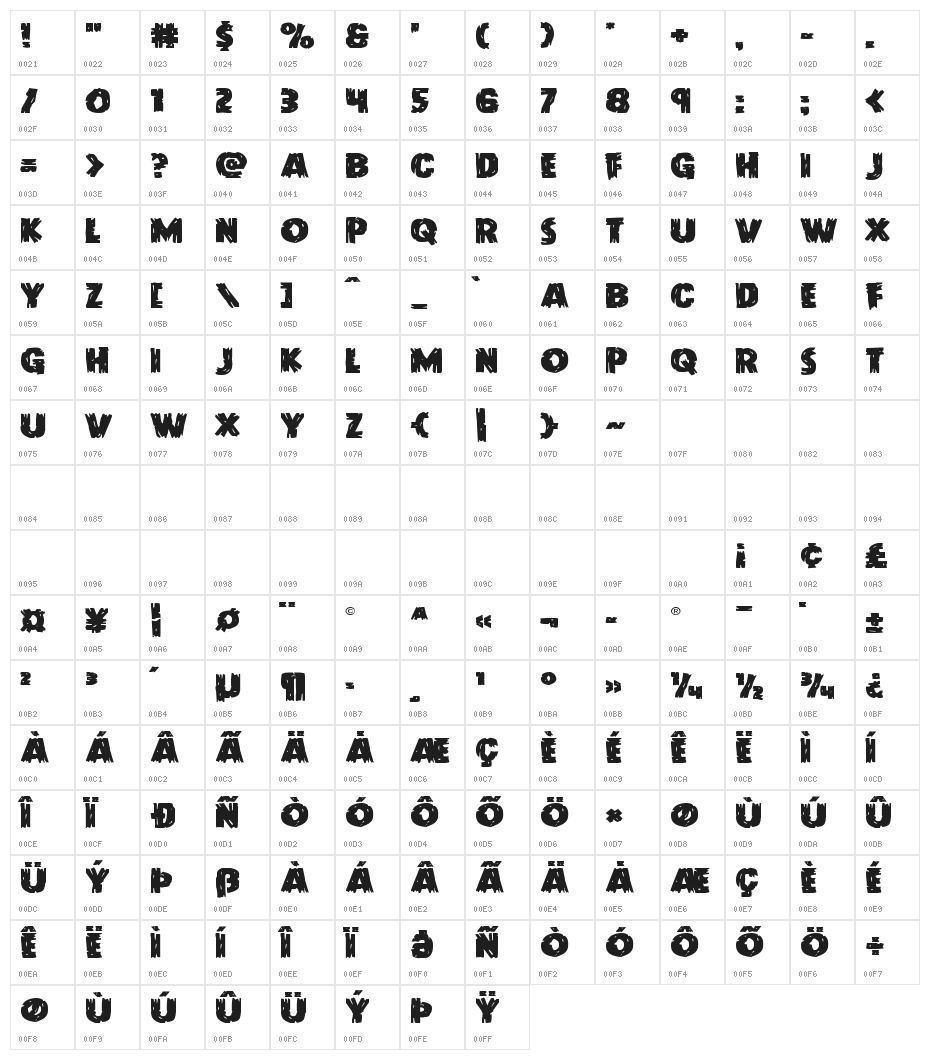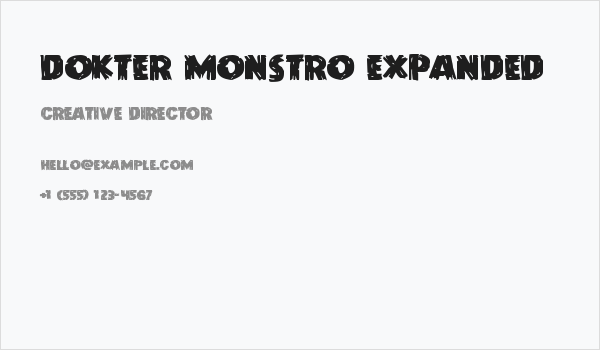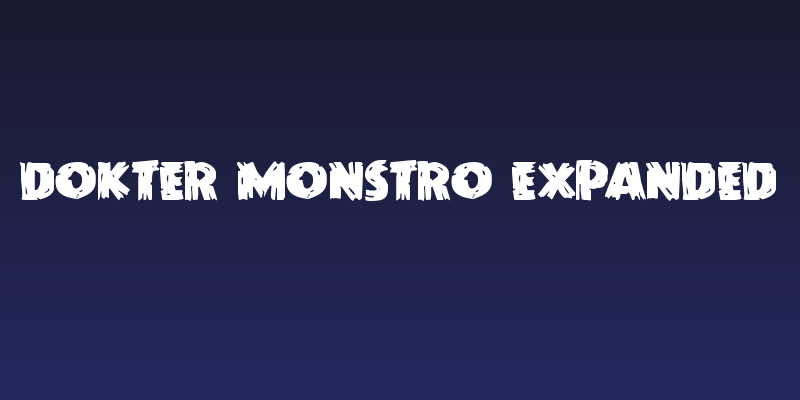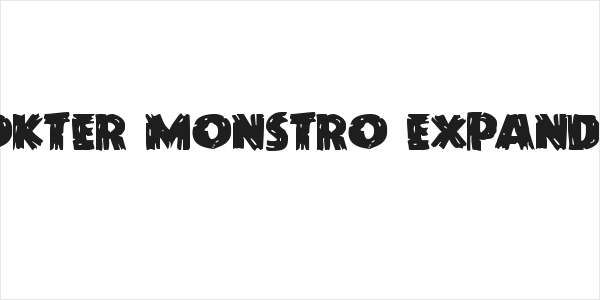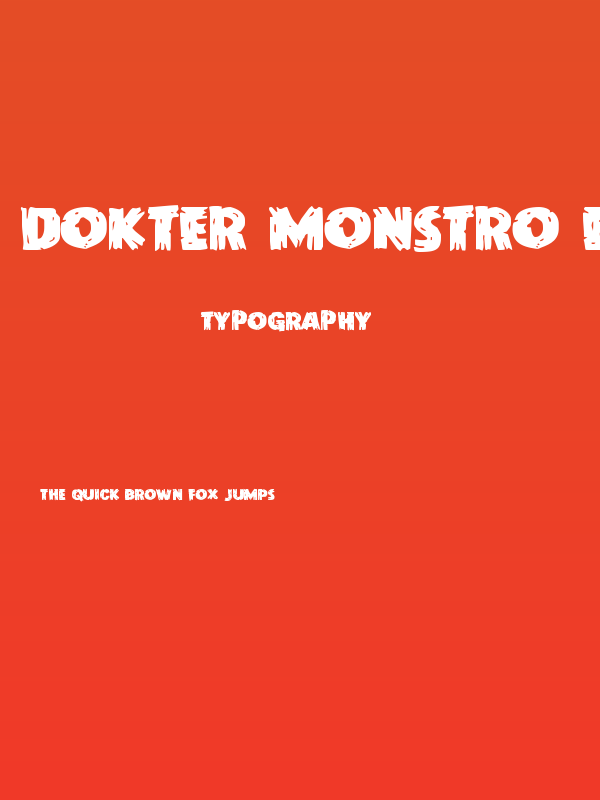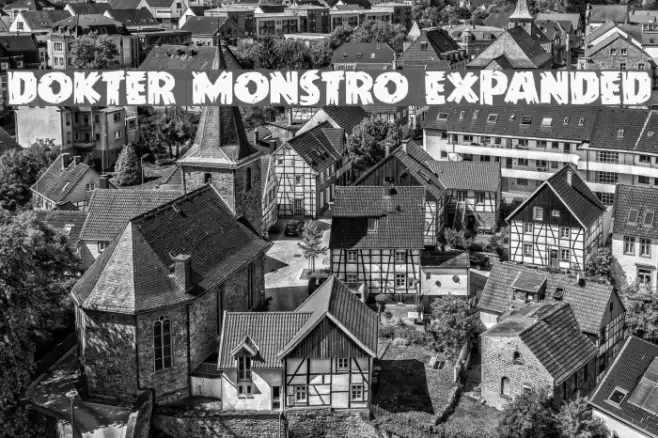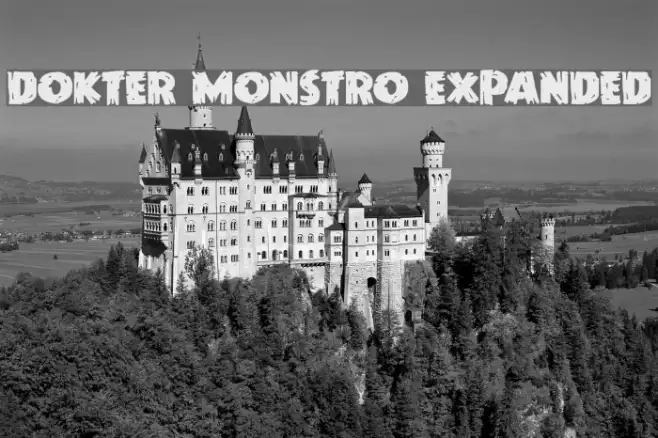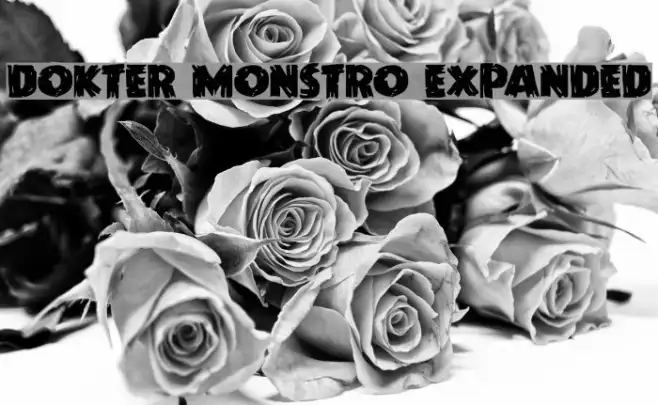
Dokter Monstro Expanded Font
Dokter Monstro Expanded Description
This font features a bold, jagged style with a playful and chaotic appearance. The characters have irregular edges, giving them a dynamic and energetic feel. The uppercase and lowercase letters maintain a consistent thickness, while the numbers and special characters follow the same rugged design. The font's unique style makes it stand out, ideal for projects that require a bold and unconventional look. Its expanded width adds to its striking presence, making it suitable for eye-catching headlines or creative designs.
| Proposed Projects | Ideal for Halloween-themed designs, posters, album covers, or any project needing a bold, unconventional look. |